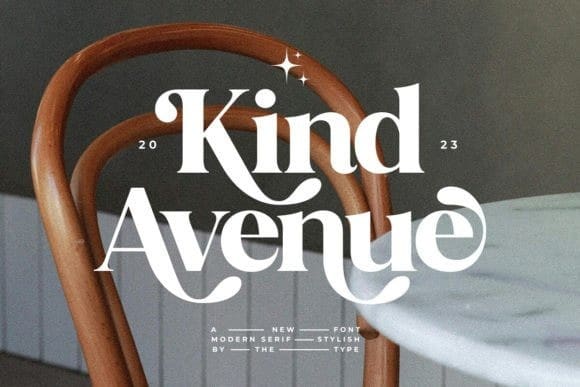
Kind Avenue Font
Kind Avenue Font – a Stylish Retro Font. This font can look more retro (conservative) serif, which is perfect for texts. So it can be more expressive, playing, and more modern with alternative substitutes and ligatures, try to play with them and you will get uniqueness in your project.